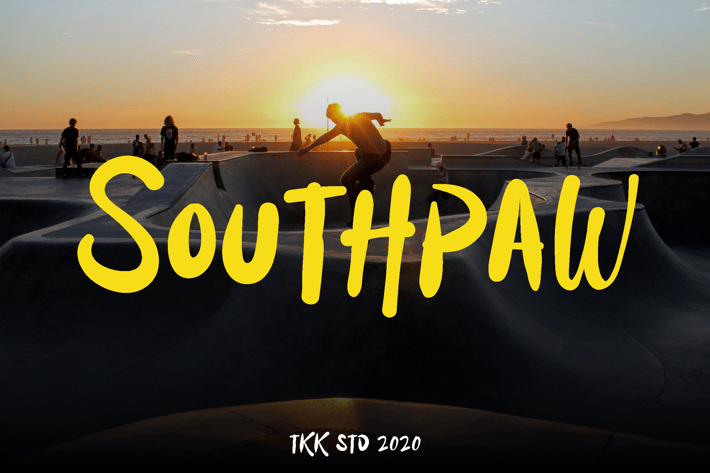
Southpaw - Graffiti Signature Font
Southpaw - Urban Street Brush Font
Southpaw graffiti brush font captures the heart of street expression with its gritty, hand-brushed strokes and bouncy, uneven baseline—perfectly tuned for bold, rebellious design. It channels a raw urban vibe with expressive movements, slightly jagged terminals, and dynamic flow, making it ideal for capturing attention in youth-driven markets. Think skate culture, urban apparel, and music festival posters—this font hits hard with a fearless, authentic attitude.
Whether you're branding a skatewear label, crafting a poster for a BMX competition, or energizing social media content for youth events, Southpaw makes your message hit loud. The font’s street-inspired rhythm and visual punch create immediate emotional impact—perfect for audiences craving edge, personality, and originality. It’s a go-to for rebellious brands, action sports promotions, and urban-themed merchandise.
Key Features
Why Designers Love Southpaw:
- Bold & expressive brush strokes for authentic, street-style visuals
- Energetic flow with natural hand-drawn texture
- Bouncy, graffiti-inspired rhythm with unique character shapes
- Ideal for: branding, merchandise, street posters, editorial titles, social media headers
- Works beautifully for apparel design, music art, and skateboard deck graphics